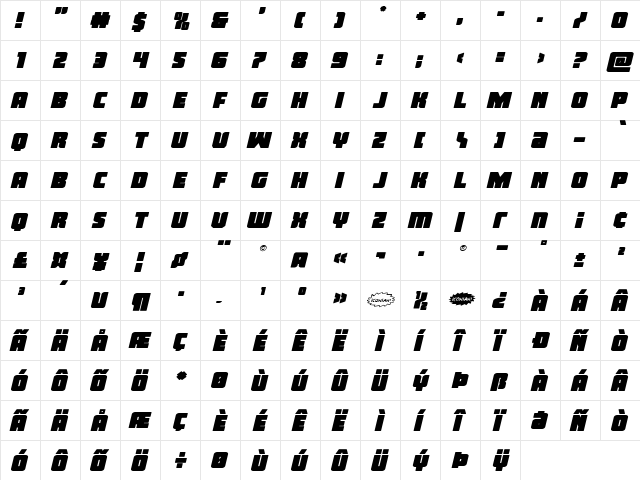
Inspector General Expand Ital Regular
Design Context for Inspector General Expand Ital Typeface
Inspector General Expand Ital is a composed and adaptable typeface that performs quietly and consistently across a wide range of design contexts.